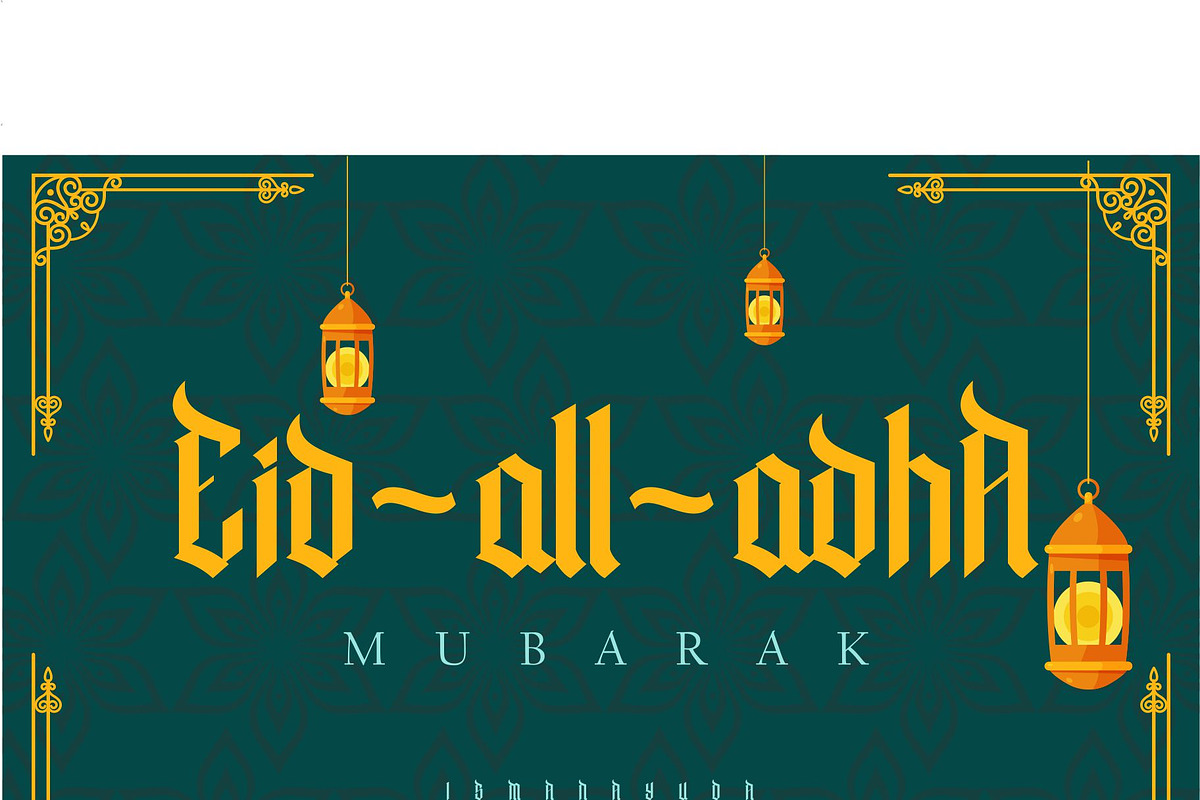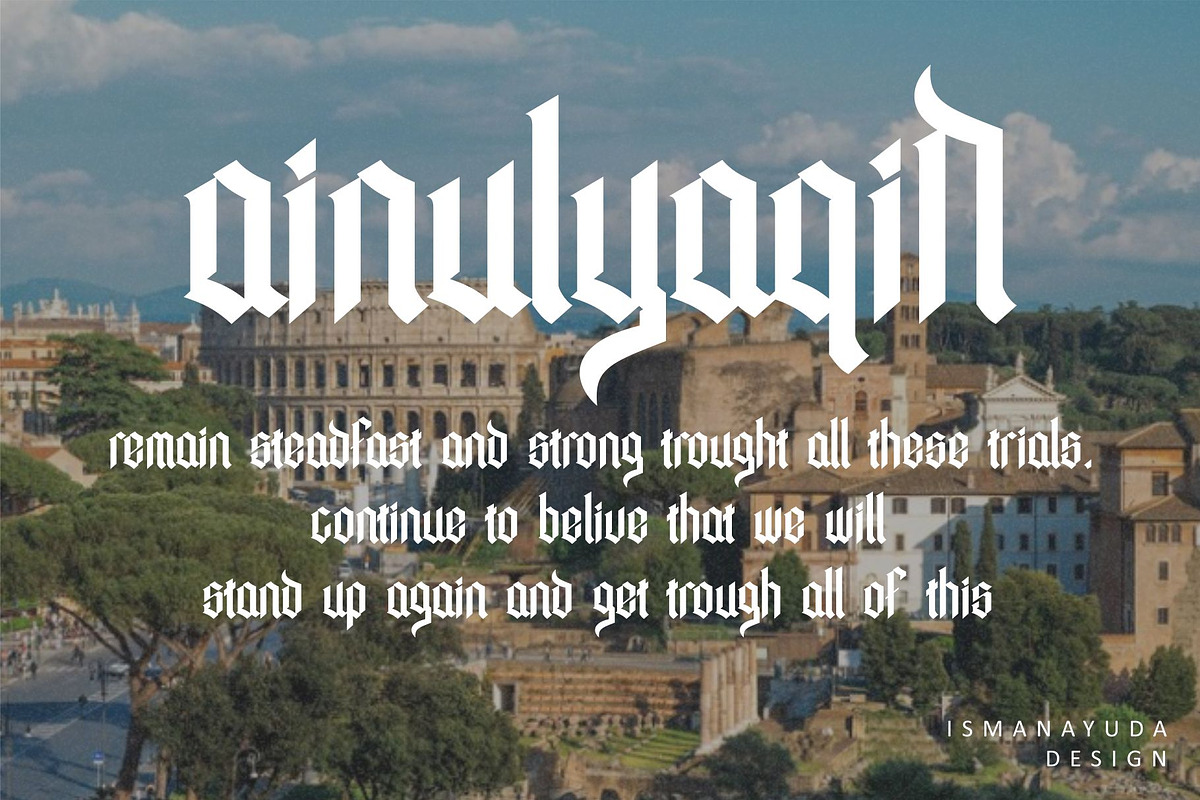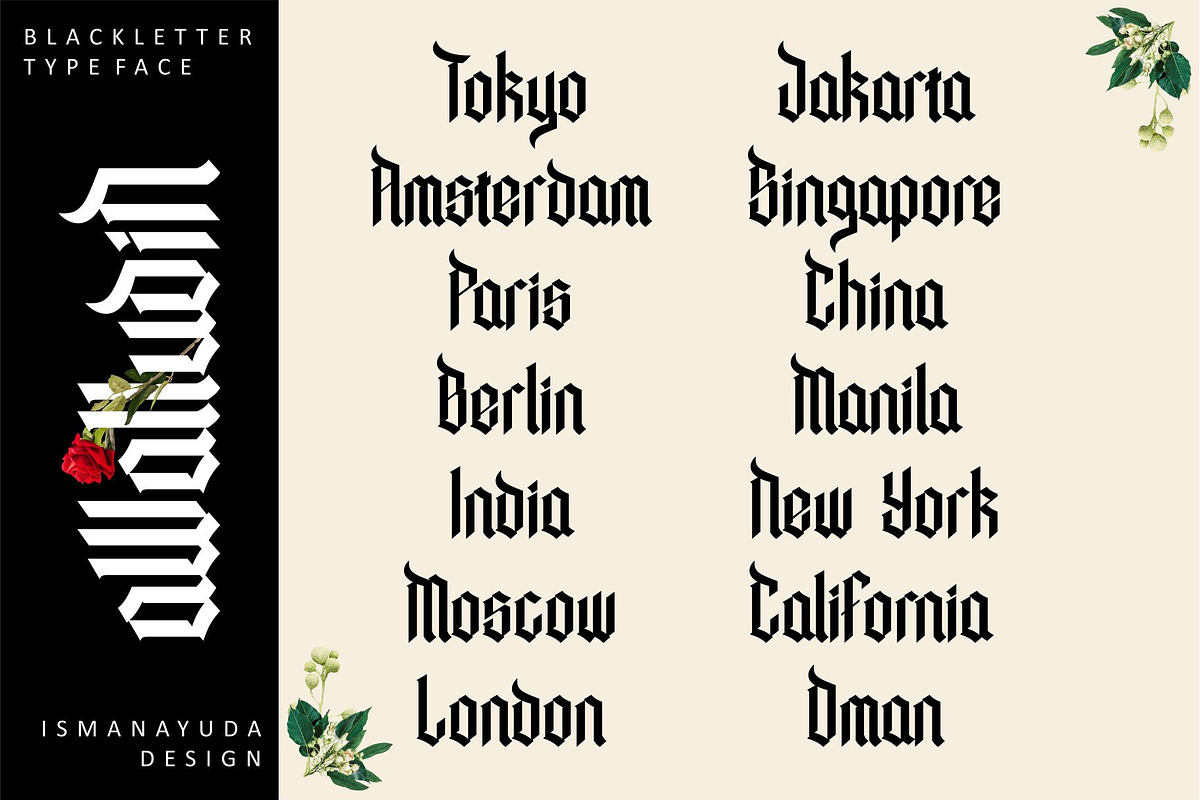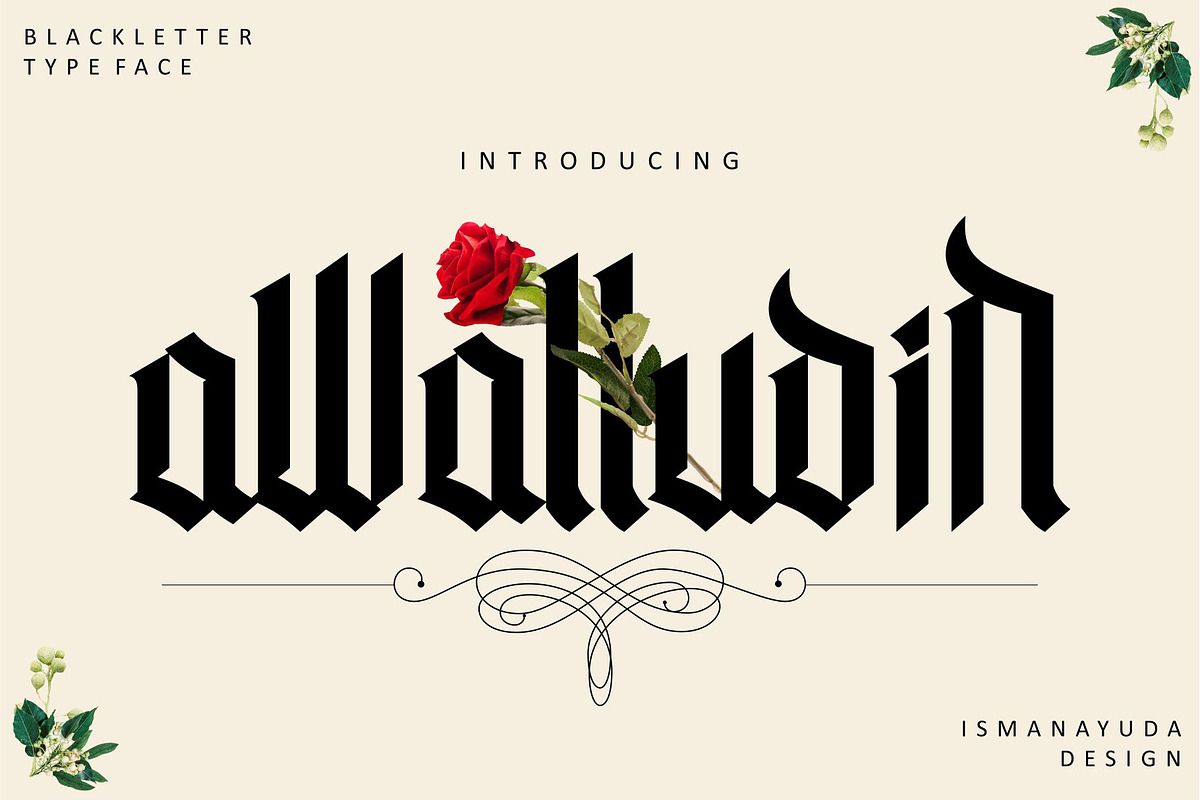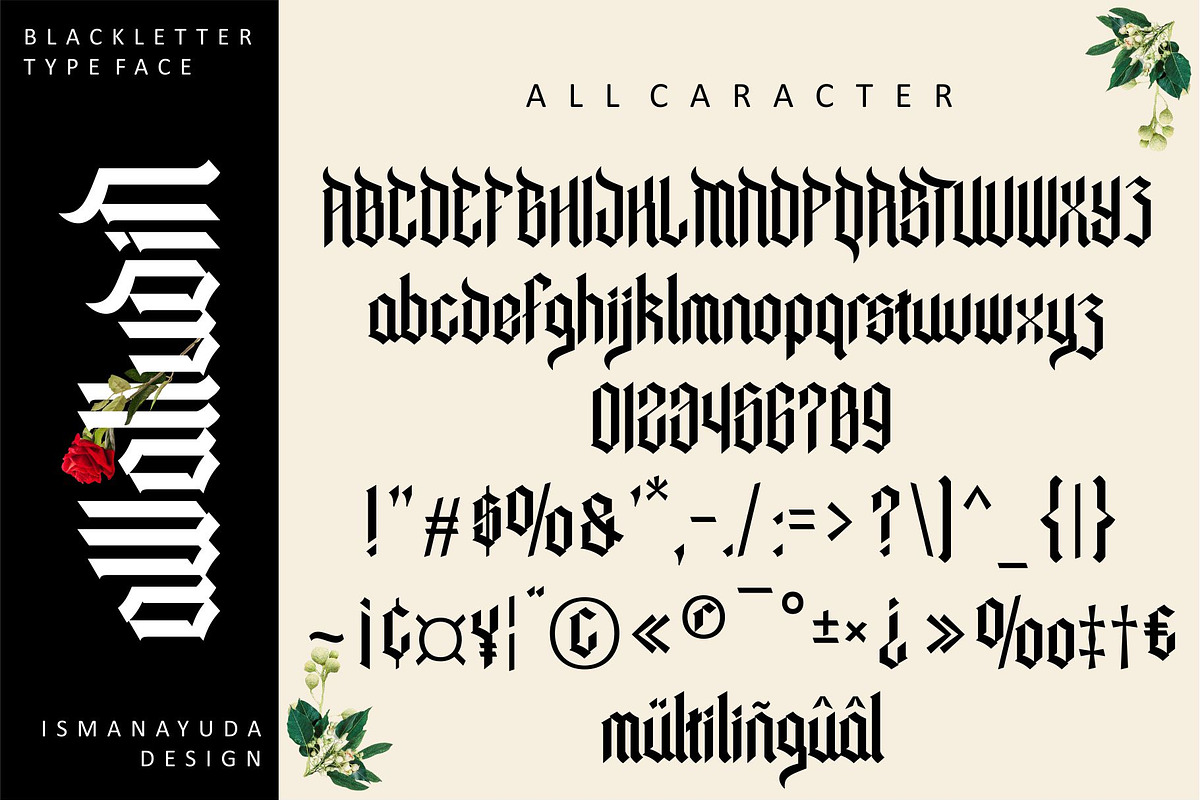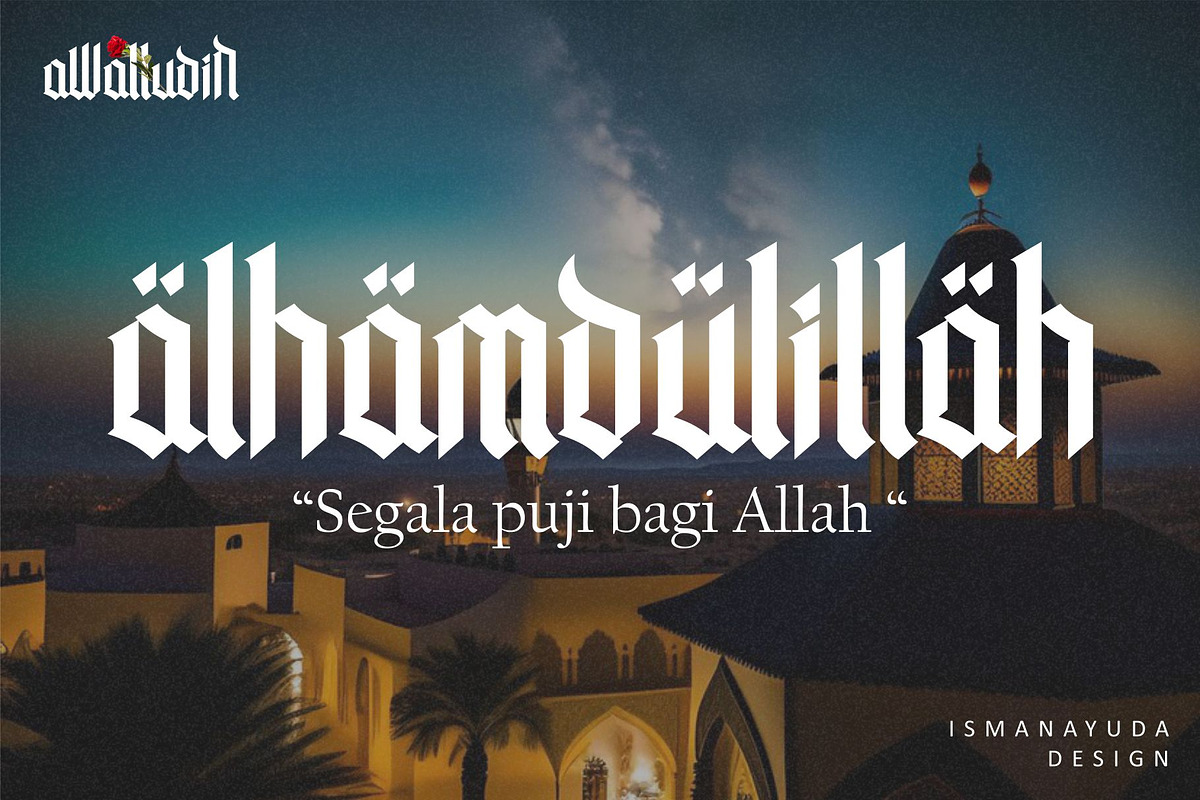
Awaludin
This time we created a font with unique characters that are also fun to use.
Especially for clothing brands or band names.
This font has a blackletter style but is given an eastern feel.
So it can be used for religious display purposes.